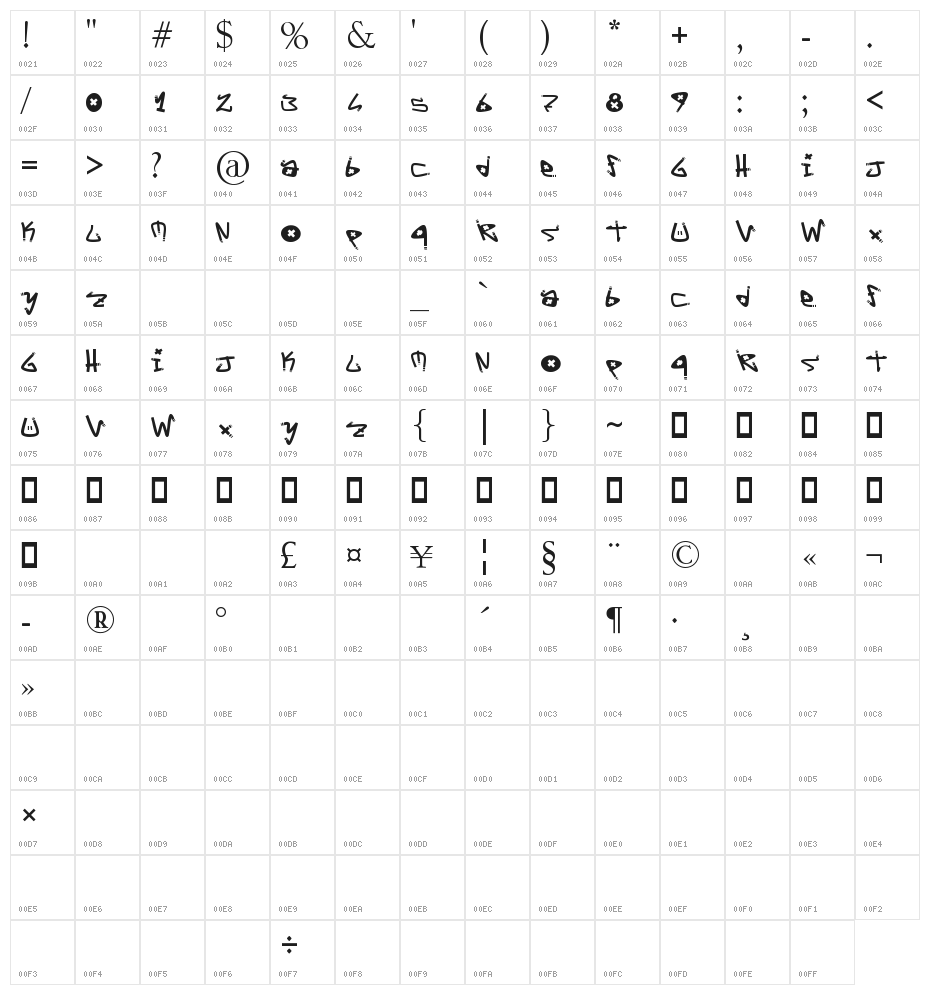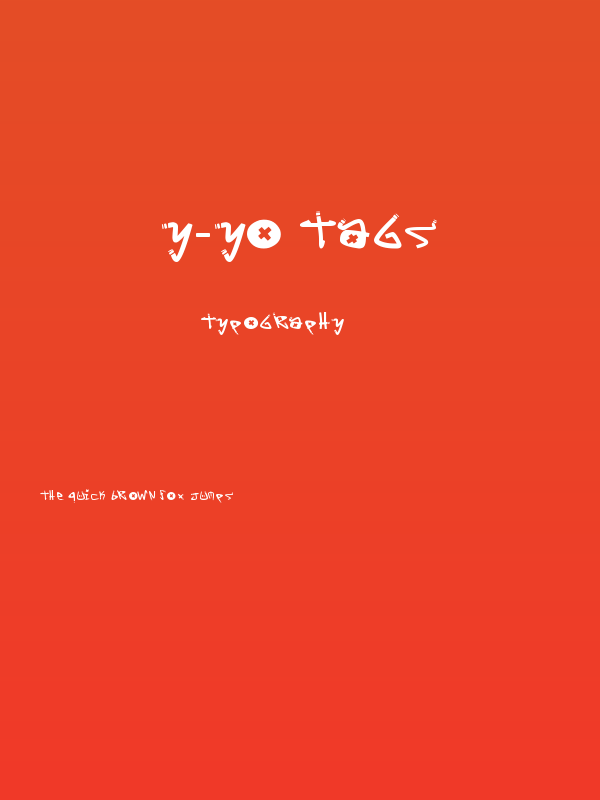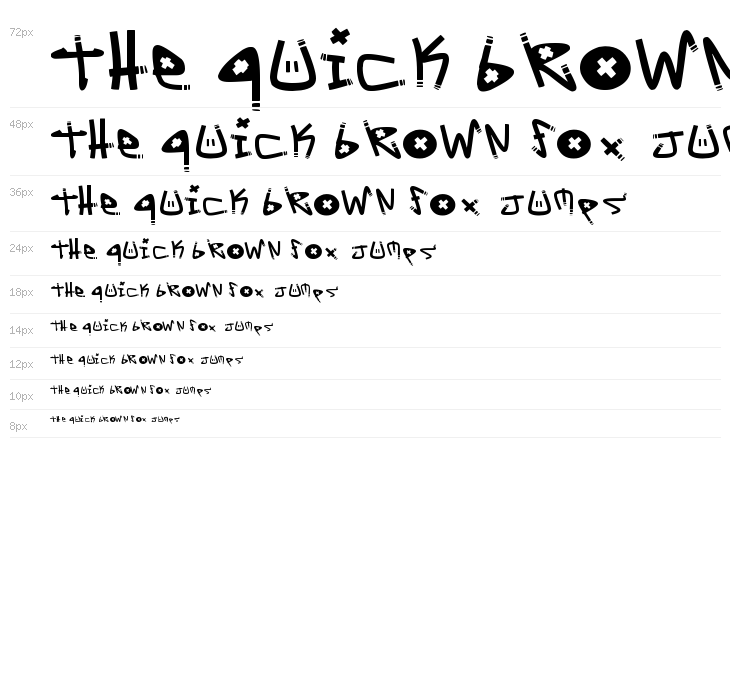
Y-Yo Tags Font
Y-Yo Tags Description
This font features a playful and graffiti-inspired style, characterized by its bold and irregular letterforms. Each character is uniquely designed with a mix of sharp angles and rounded edges, giving it a dynamic and energetic appearance. The font includes decorative elements such as stars and lines within the letters, adding to its urban and street-art vibe. The uppercase and lowercase letters maintain a consistent style, while the numbers and special characters are equally expressive, making it suitable for creative and informal designs.
Overall StyleUrban, Playful, Graffiti
Use CaseLogos, Posters, Album Covers
Proposed ProjectsIdeal for street art designs, urban-themed posters, music album covers, and youth-oriented branding.